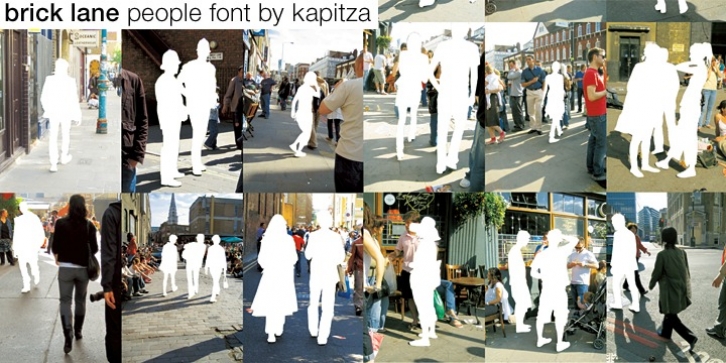
Brick Lane is an picture font consisting of 52 detailed, hand drawn illustrations of people seen on Brick Lane, a street in the heart of the Bangladeshi community in the East End of London. It has over the last few years become the home of parts of the creative industries in London, mainly media, fashion and graphics.
All illustrations are based on photographs taken on location over a period of time. The photographs are then hand traced to create high quality, detailed silhouettes.